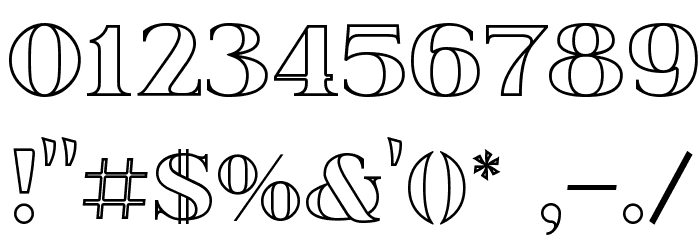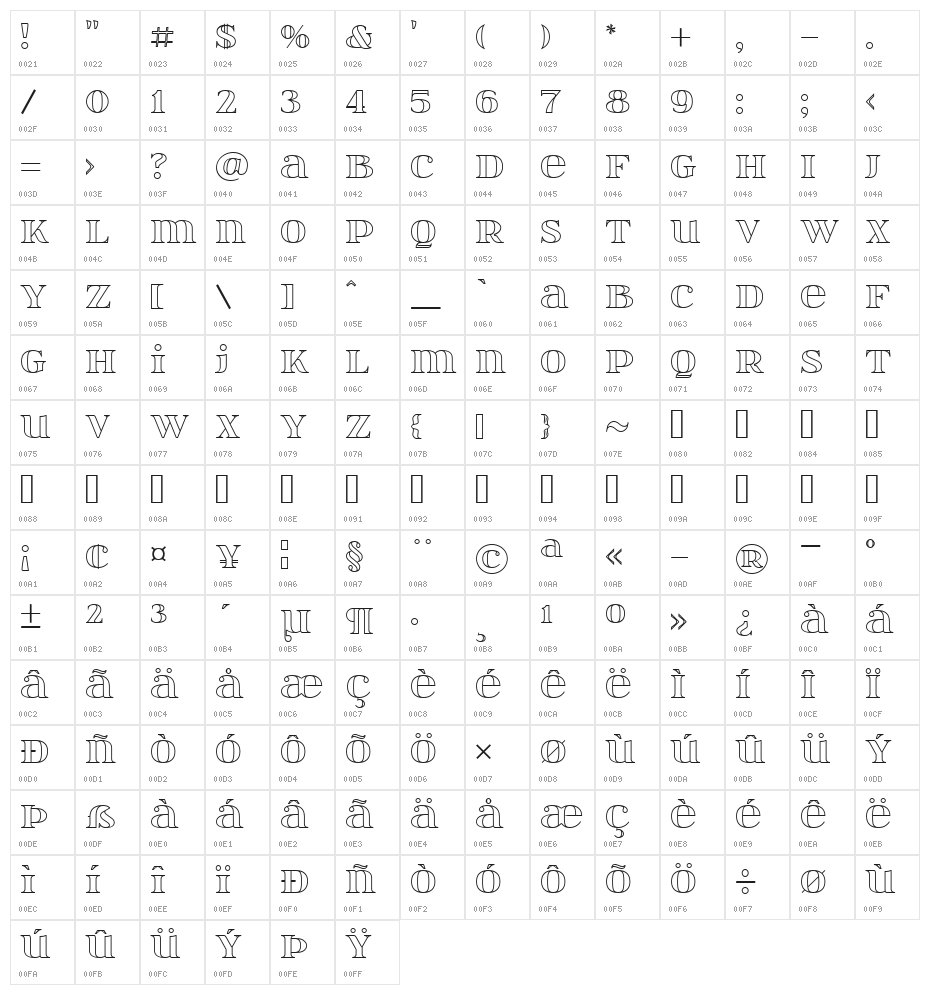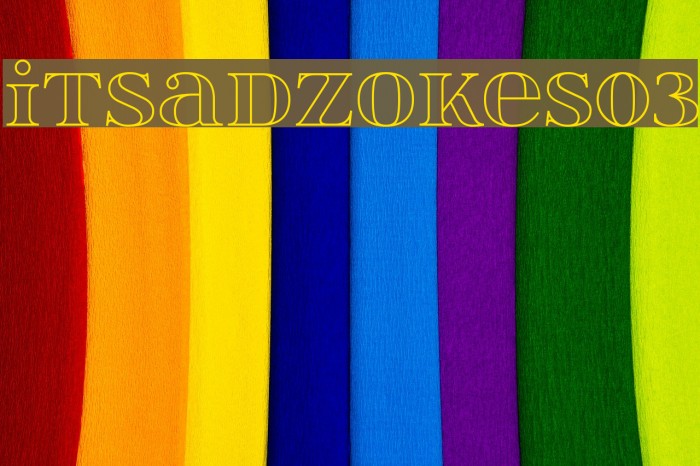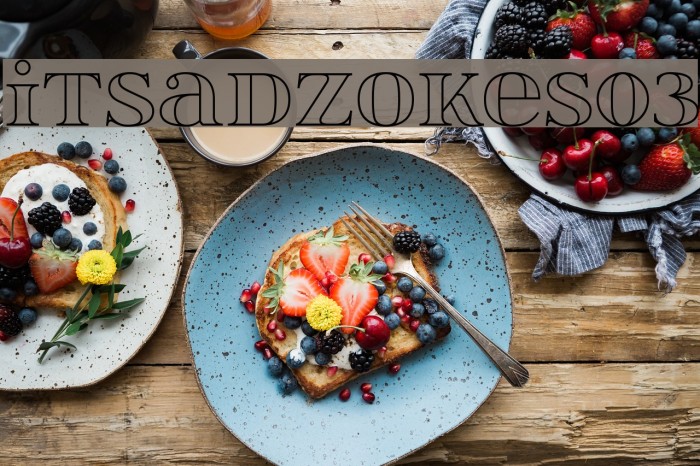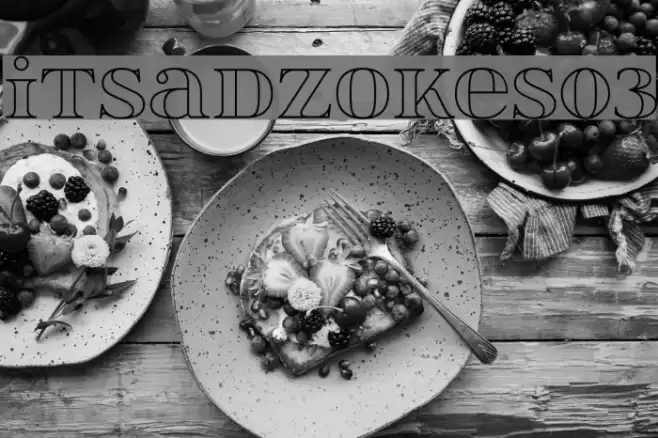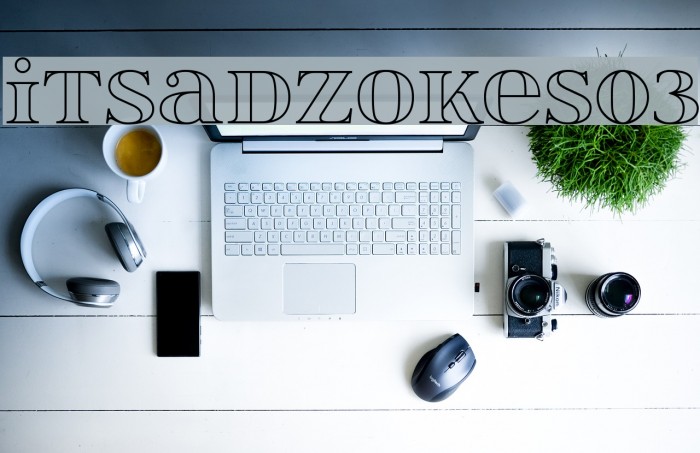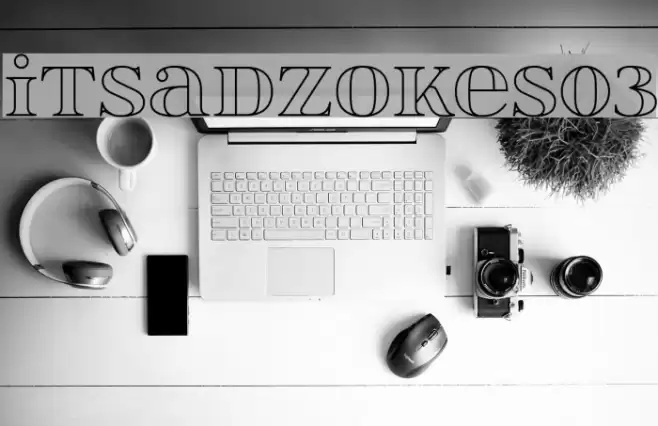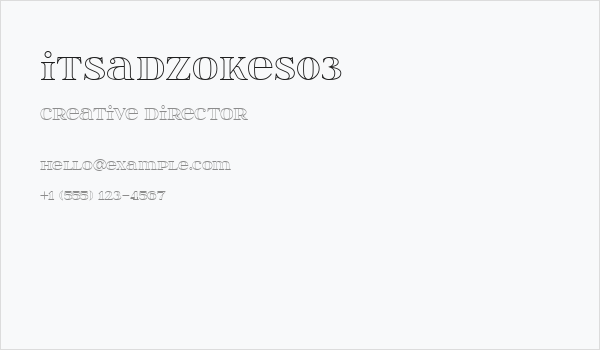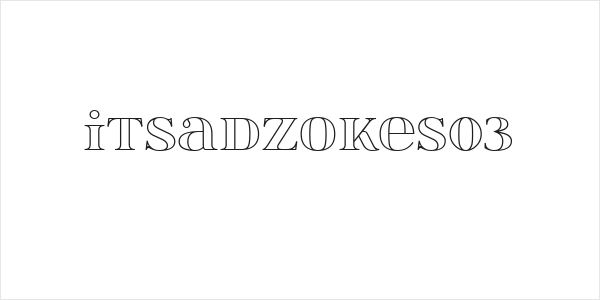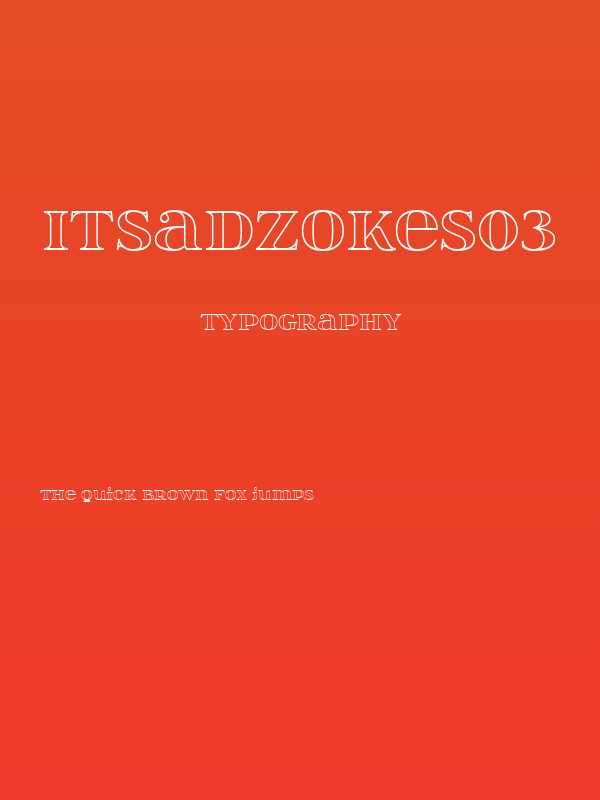
itsadzokeS03 Font
itsadzokeS03 Description
This font features a unique and decorative style with an outline effect, giving each character a hollow appearance. The uppercase and lowercase letters maintain a consistent structure, with a slight variation in size and shape. The numbers and special characters follow the same design, ensuring uniformity across all glyphs. The font's distinct look is characterized by its open, airy feel, making it stand out in any design. Its intricate lines and curves add a touch of elegance and sophistication, suitable for projects that require a creative and artistic flair.
| Proposed Projects | Ideal for creative projects such as posters, invitations, and branding materials that require a unique and artistic touch. |